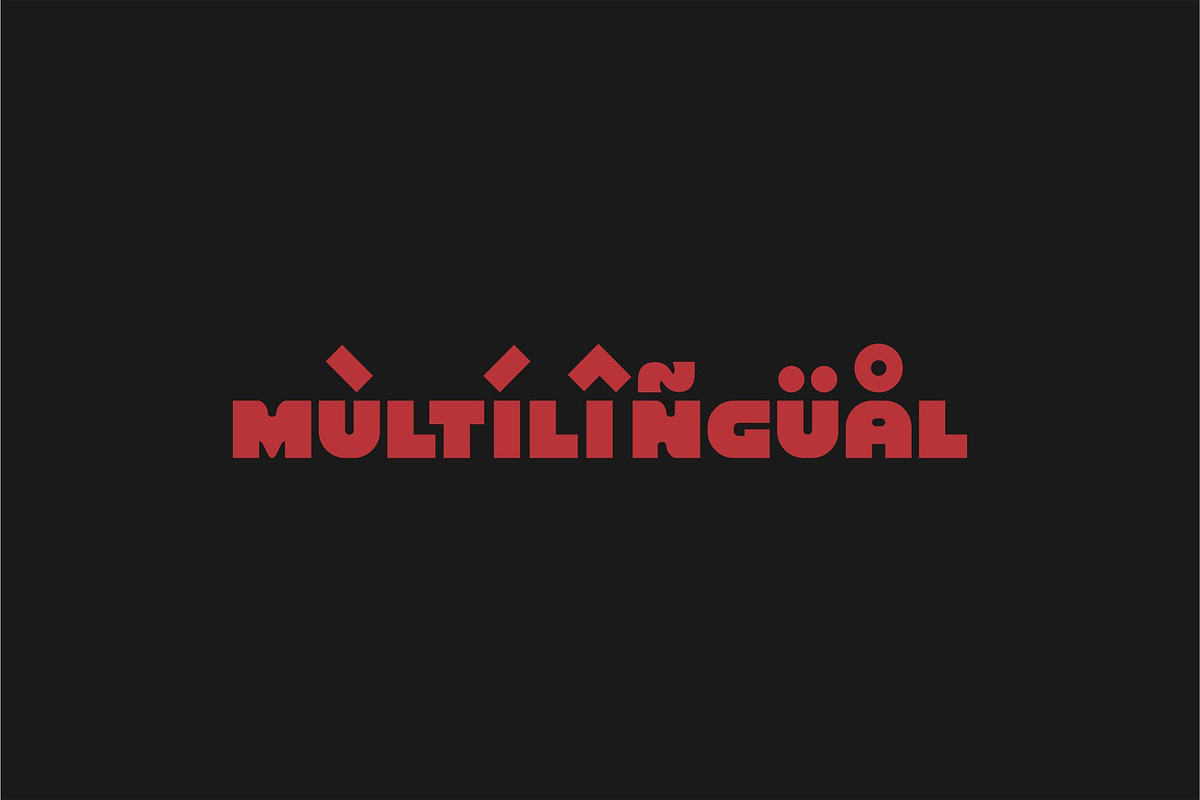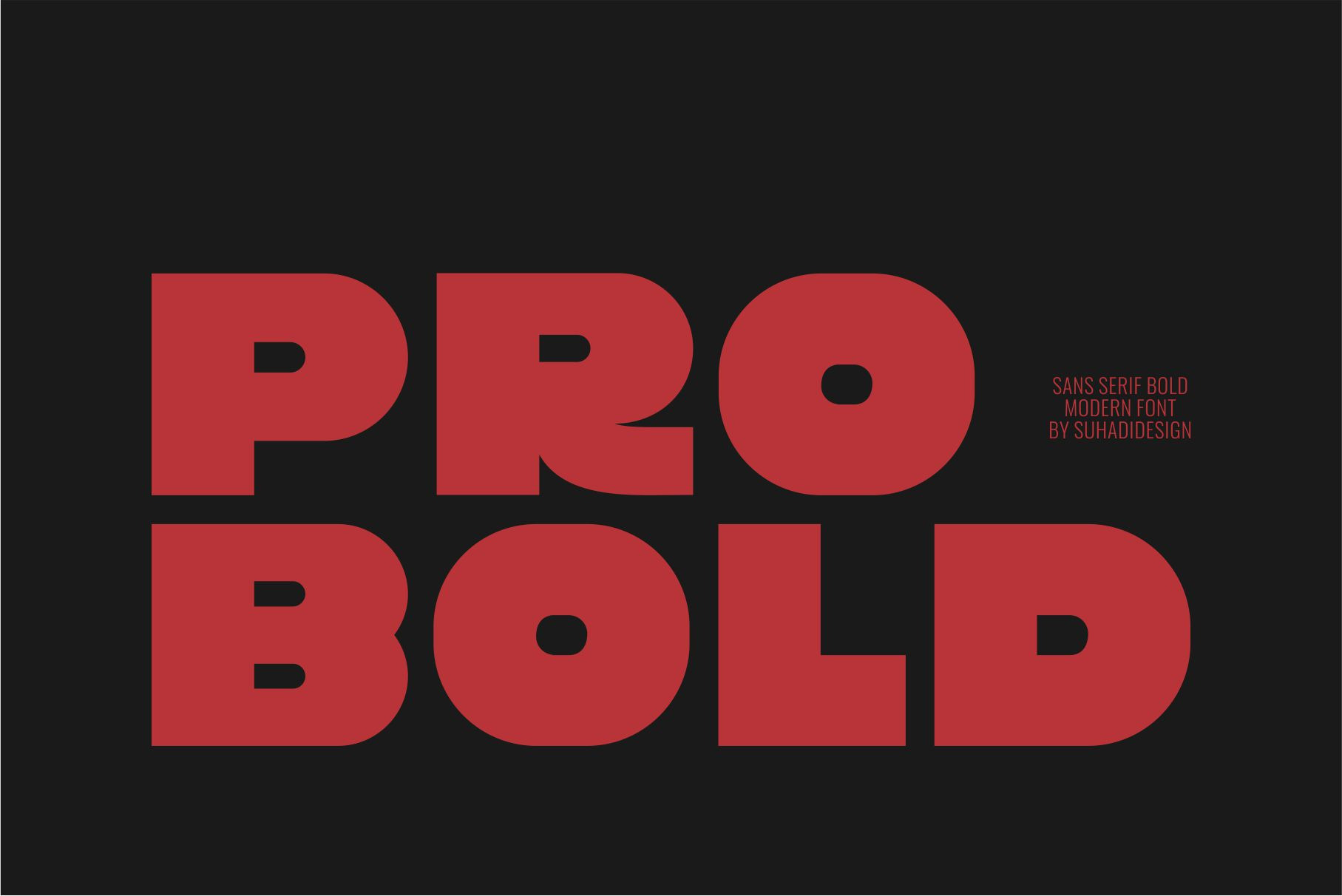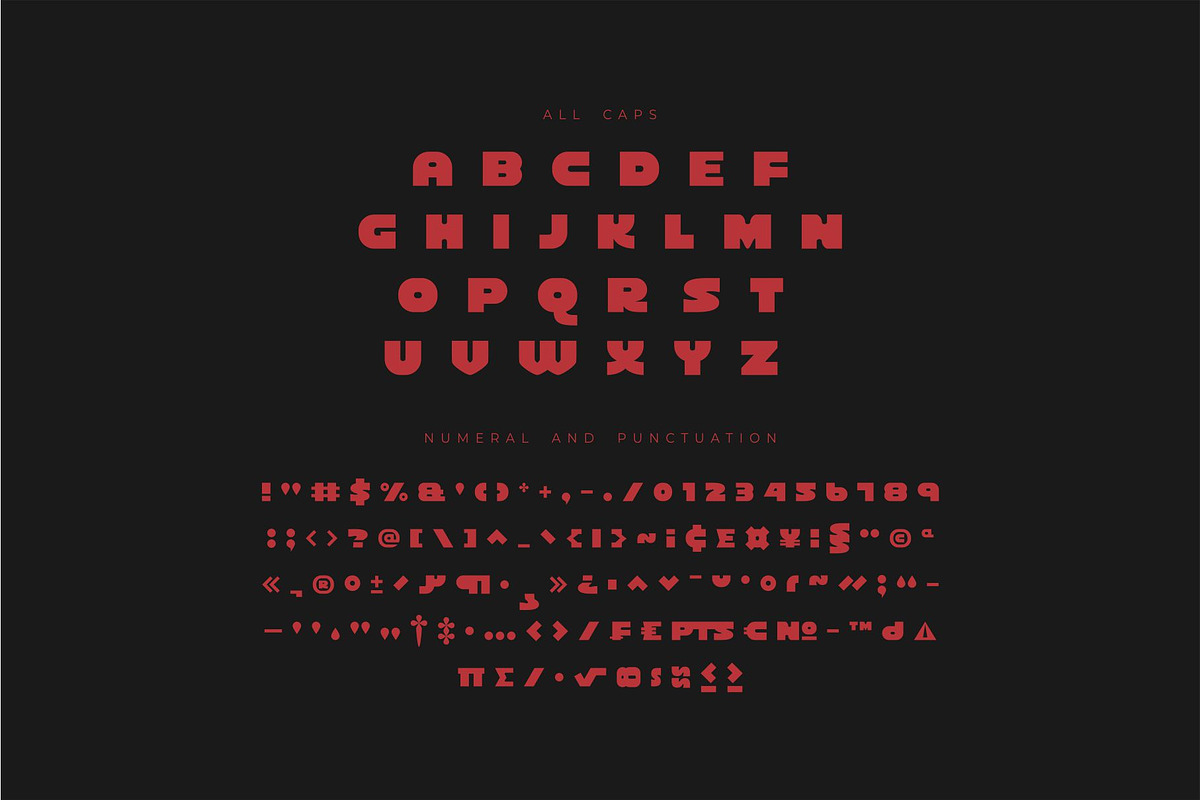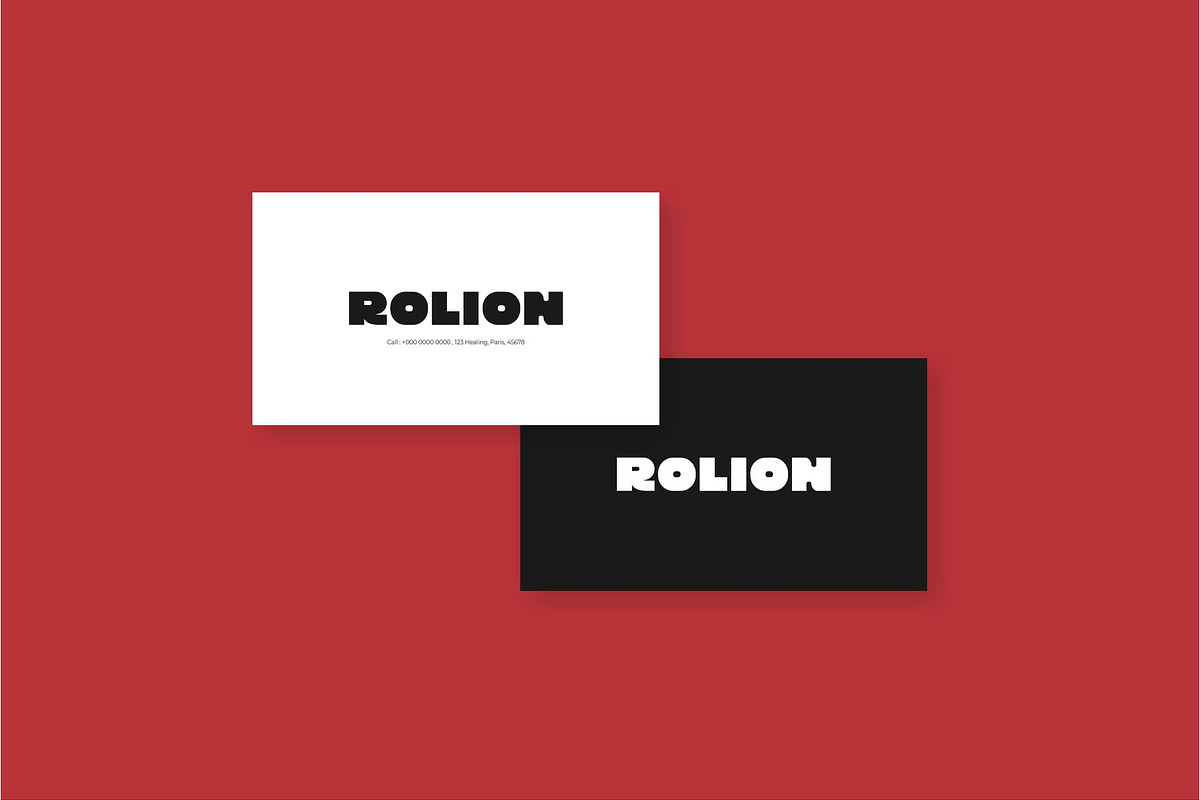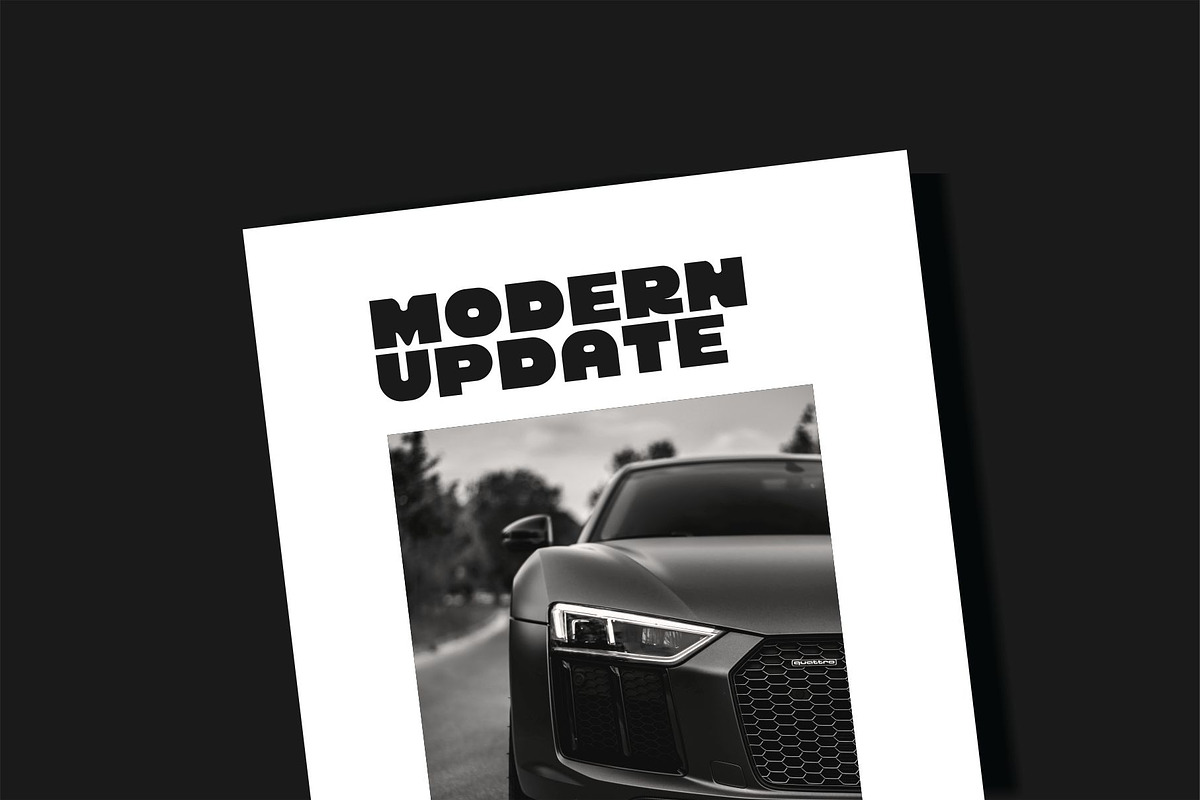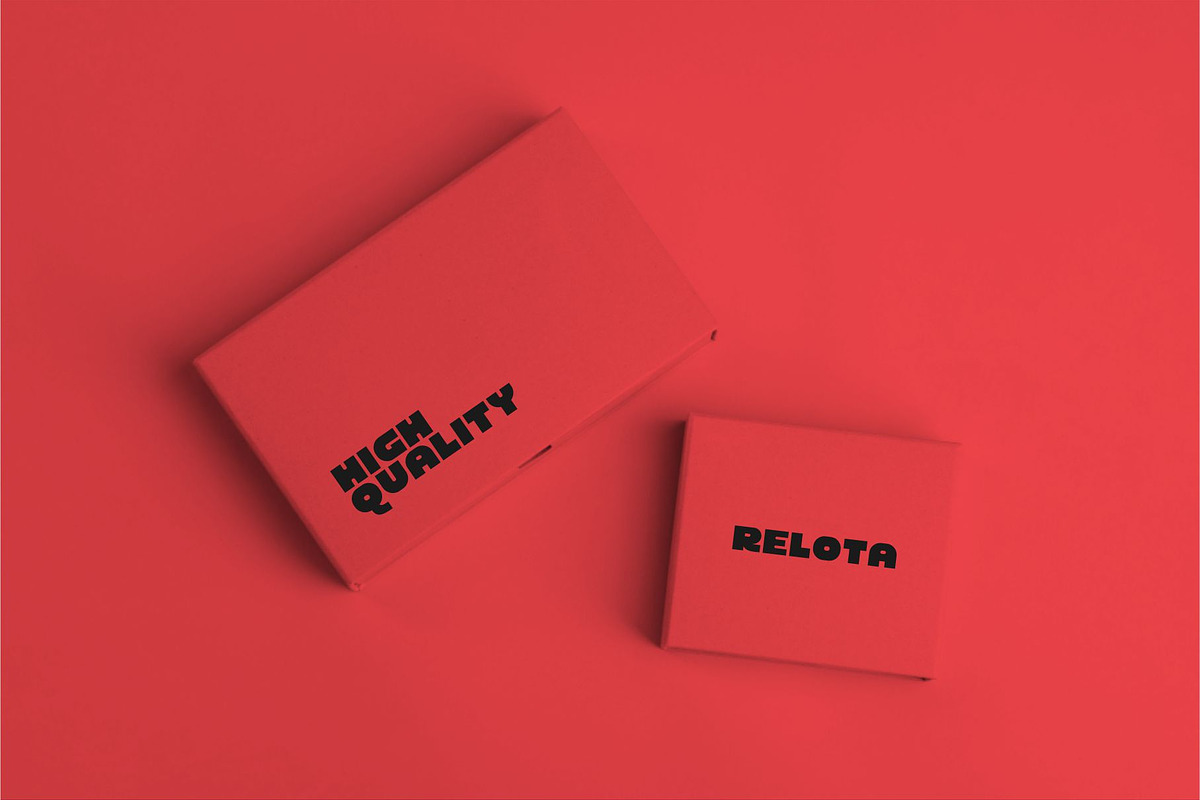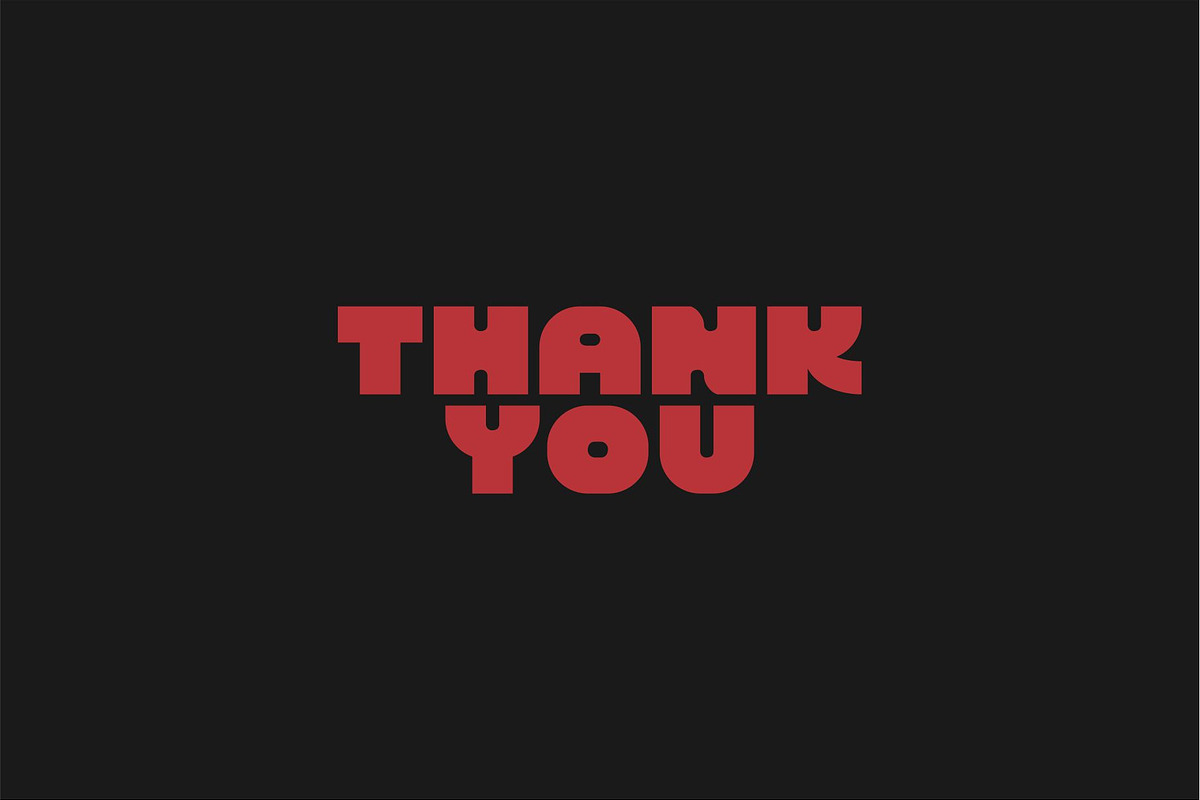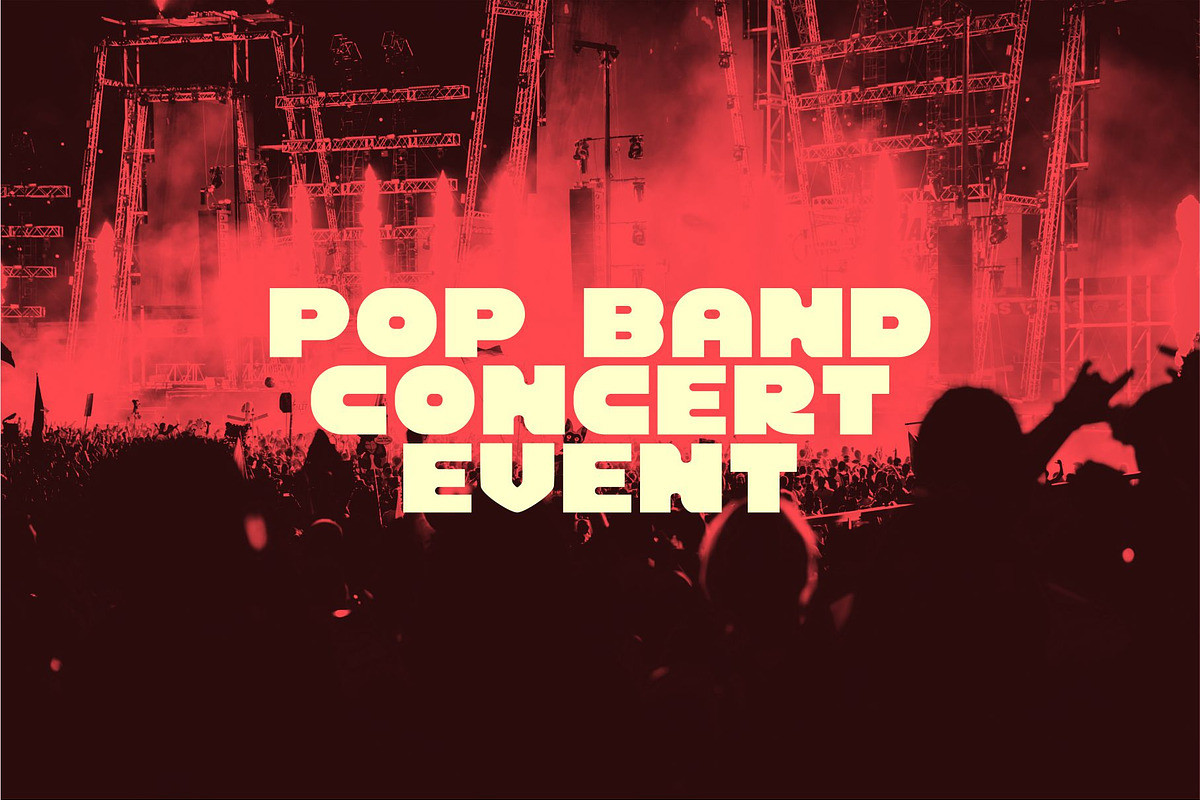
Pro Bold - Sans Serif Bold Font
Hi, ladies and gentlemen! Following market demand, I created a bold sans serif font that's cool, elegant, and captivating. So, I decided to create this sans serif font. Pro Bold is a sans serif font presented in a modern style to become a market favorite. We've kept this font elegant, classy, modern, stylish, contemporary, and easy to use. Pro Bold is a great choice for magazines, book covers, shopping bags, packaging, logos, labels, fashion, posters, banners, bags, branding, fashion, brand names, branding, quotes, and other projects. Pro Bold is here to take your designs to the next level.
• All capital letters • Multilingual support • Numbers and punctuation